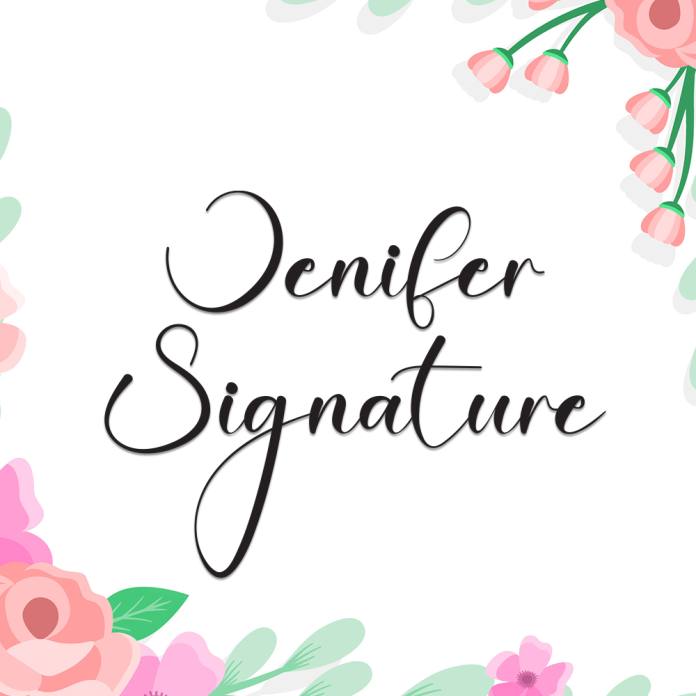
Jenifer Signature is an elegant and sophisticated handwriting font that captures the essence of a personal signature. With its smooth, flowing lines and delicate curves, this font exudes class and confidence.
Handwriting style inspired by real signature strokes
Ideal for branding, logos, wedding invitations, and fashion-related projects
Graceful uppercase and lowercase characters
Add a personal, luxurious touch to your designs with the timeless elegance of Jenifer Signature.